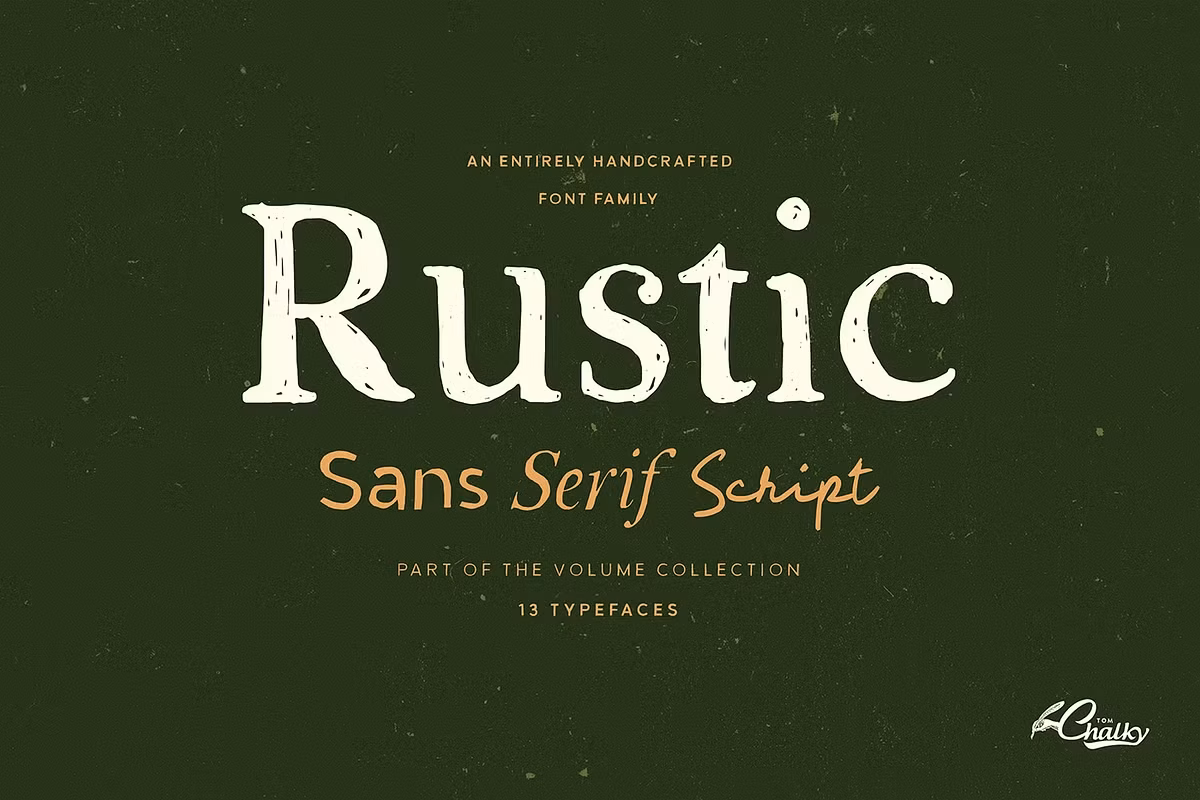
Rustic - 13 Handcrafted Fonts Free Download is a versatile and charming collection of hand-drawn fonts designed to add a personal, rustic touch to any design. This bundle includes a variety of script, serif, and sans-serif fonts, each with unique handcrafted qualities perfect for vintage, rustic, and organic-themed projects.
Whether you’re working on branding, invitations, product labels, posters, or any creative project that requires a handmade, authentic feel, this font collection has everything you need. From bold and expressive to delicate and subtle, these fonts provide endless possibilities for bringing warmth and personality to your designs.